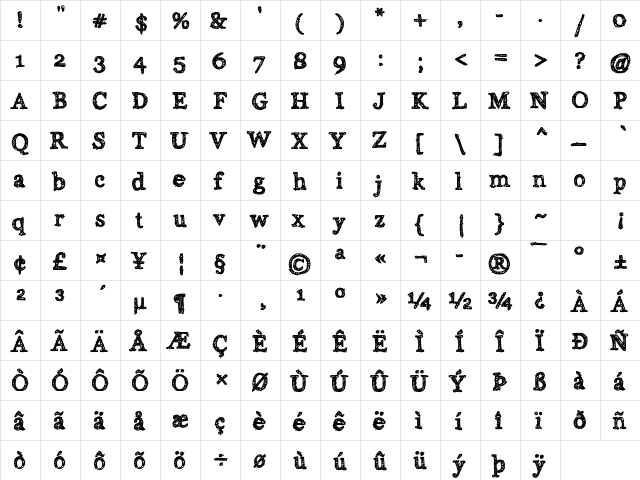
Alabama Regular
Design Context for Alabama Typeface
Alabama takes a measured approach to typography — its balanced proportions and neutral character make it a reliable workhorse for both digital and print work.